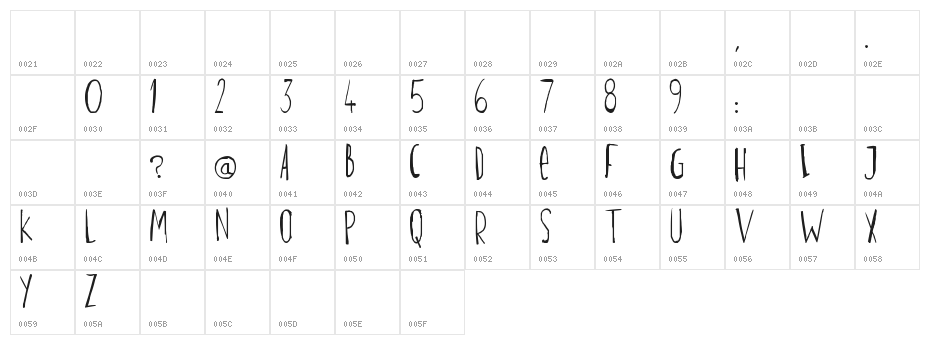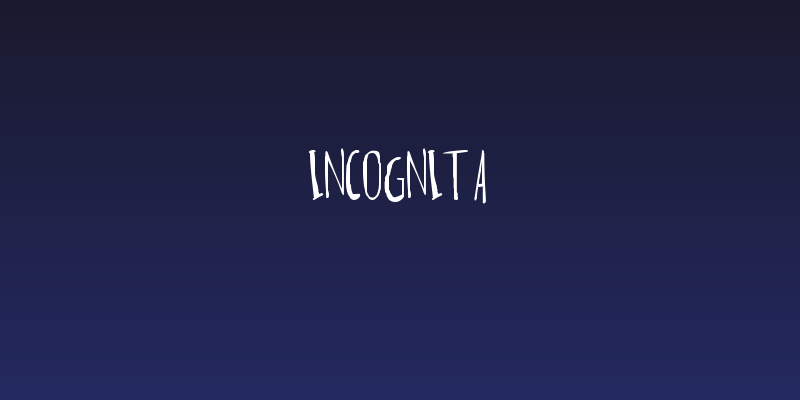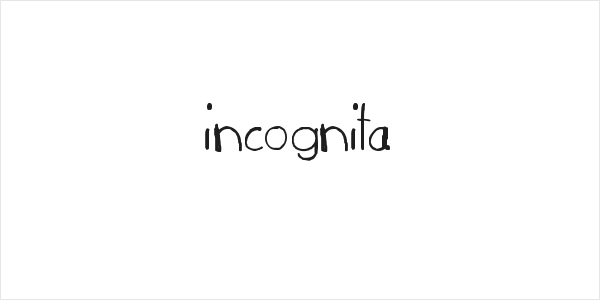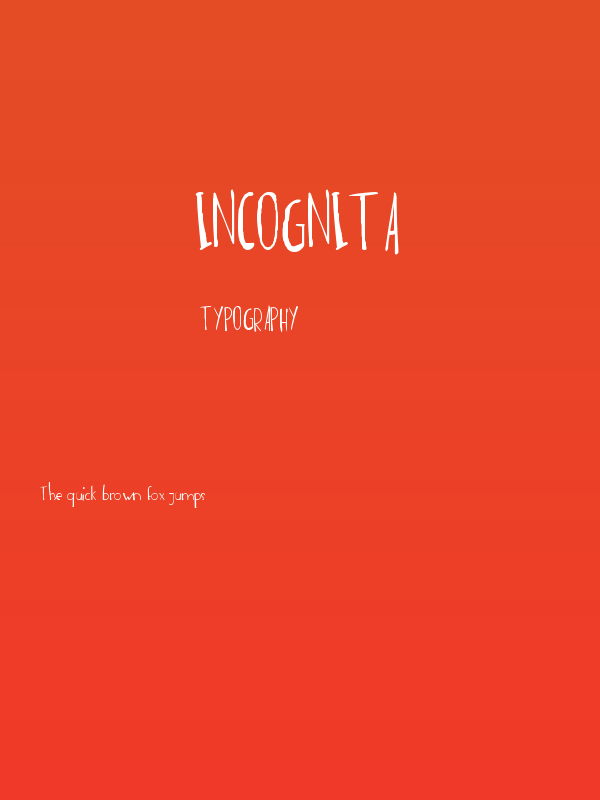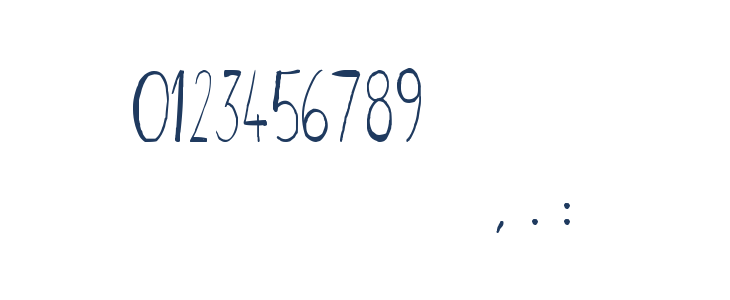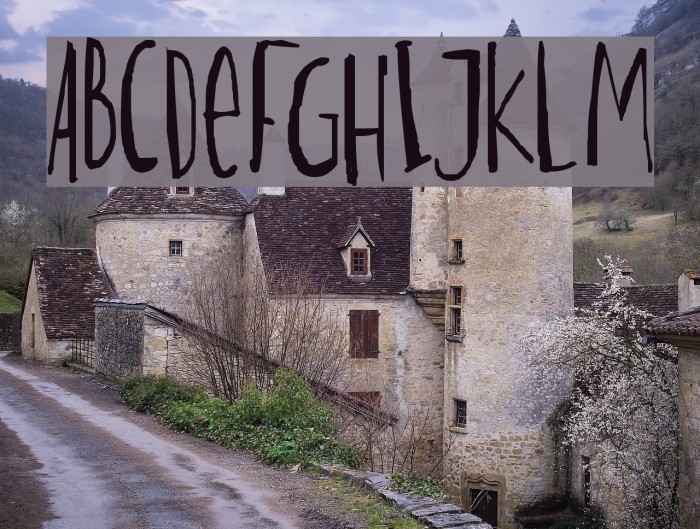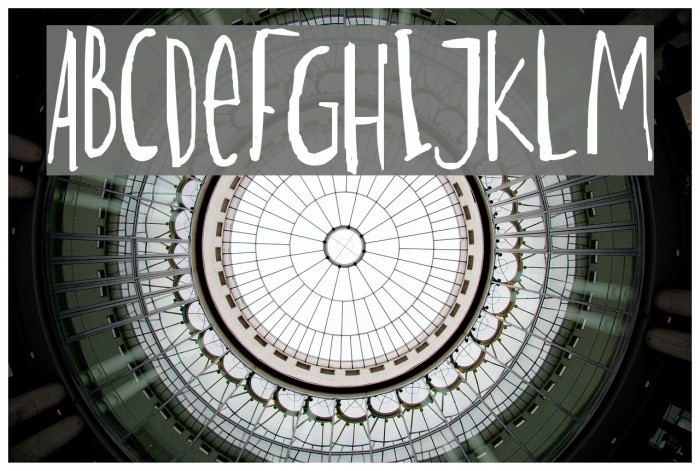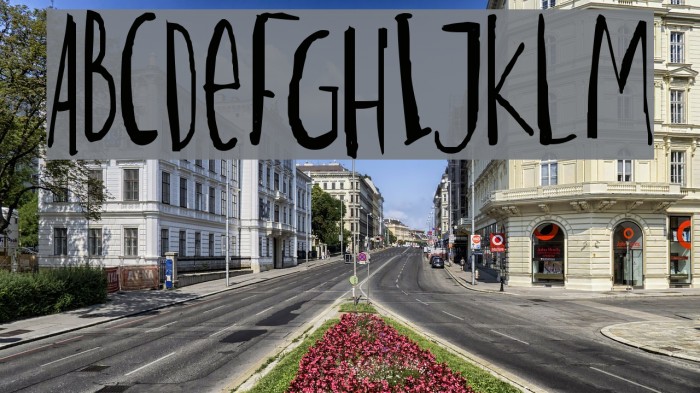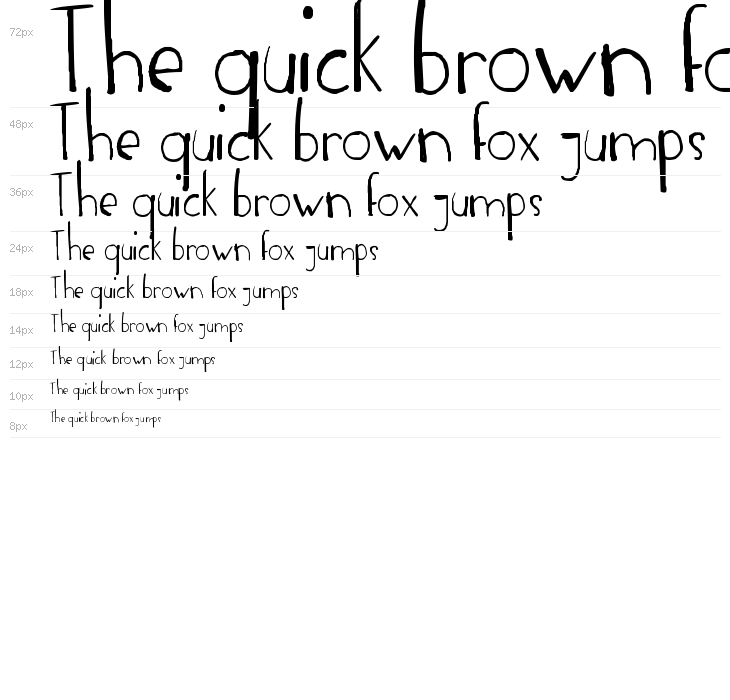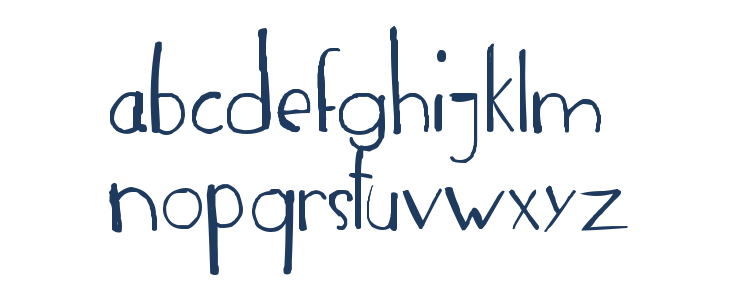
incognita Font
incognita Description
This font exhibits a playful and quirky handwritten style, characterized by its irregular and uneven strokes. The letters vary in height and width, giving it a casual and informal appearance. The uppercase letters are tall and narrow, while the lowercase letters are more rounded and compact. The numbers follow a similar style, maintaining the whimsical and uneven look. The special characters are simple yet consistent with the overall design. This font's unique personality makes it stand out, perfect for creative and artistic projects.
INCOGNITA UPPERCASE
INCOGNITA LOWERCASE
INCOGNITA OTHER CHARS
| Overall Style | Casual, Artistic |
| Use Case | Headlines, Creative projects, Informal designs |
| Proposed Projects | Ideal for greeting cards, children's books, creative posters, and artistic branding. |